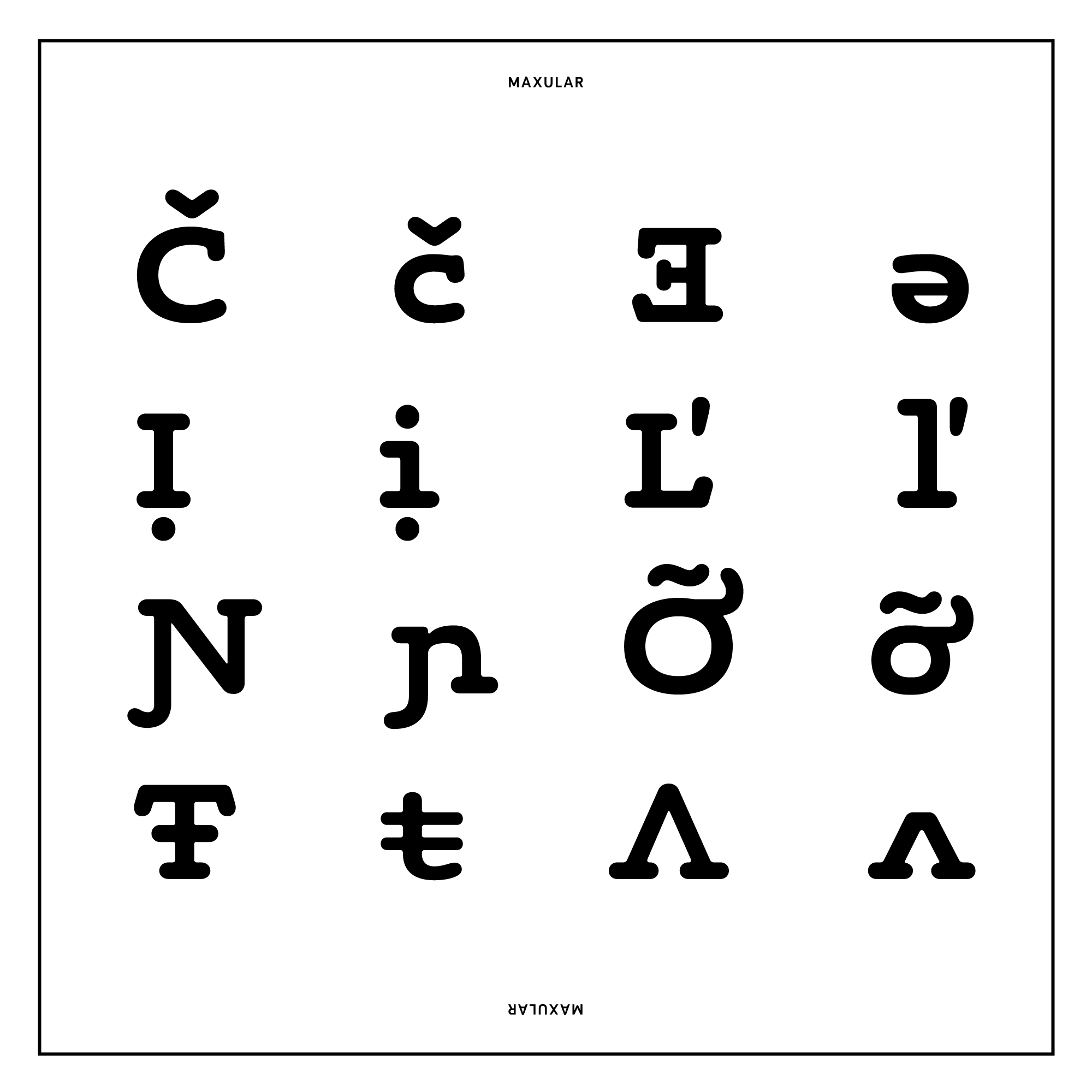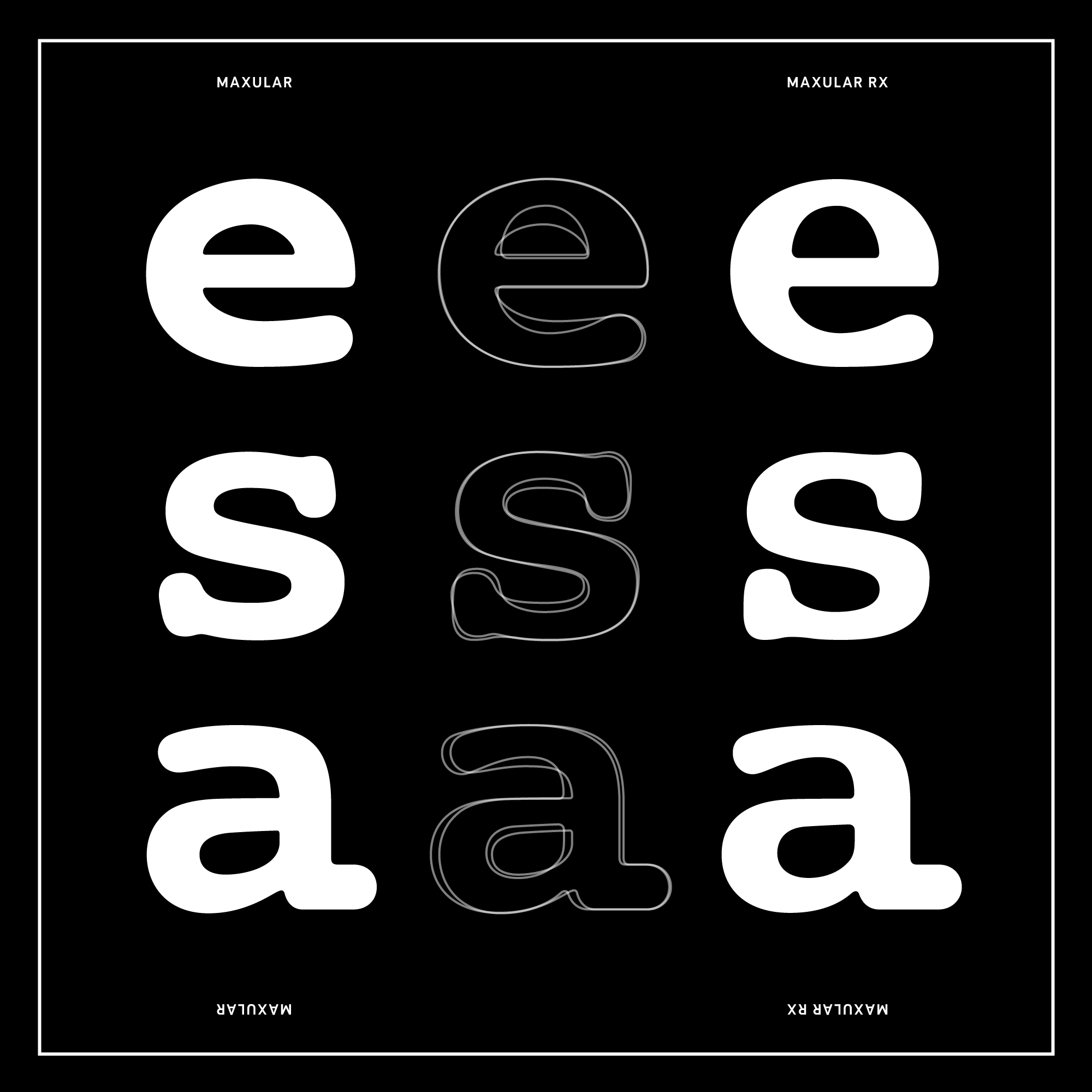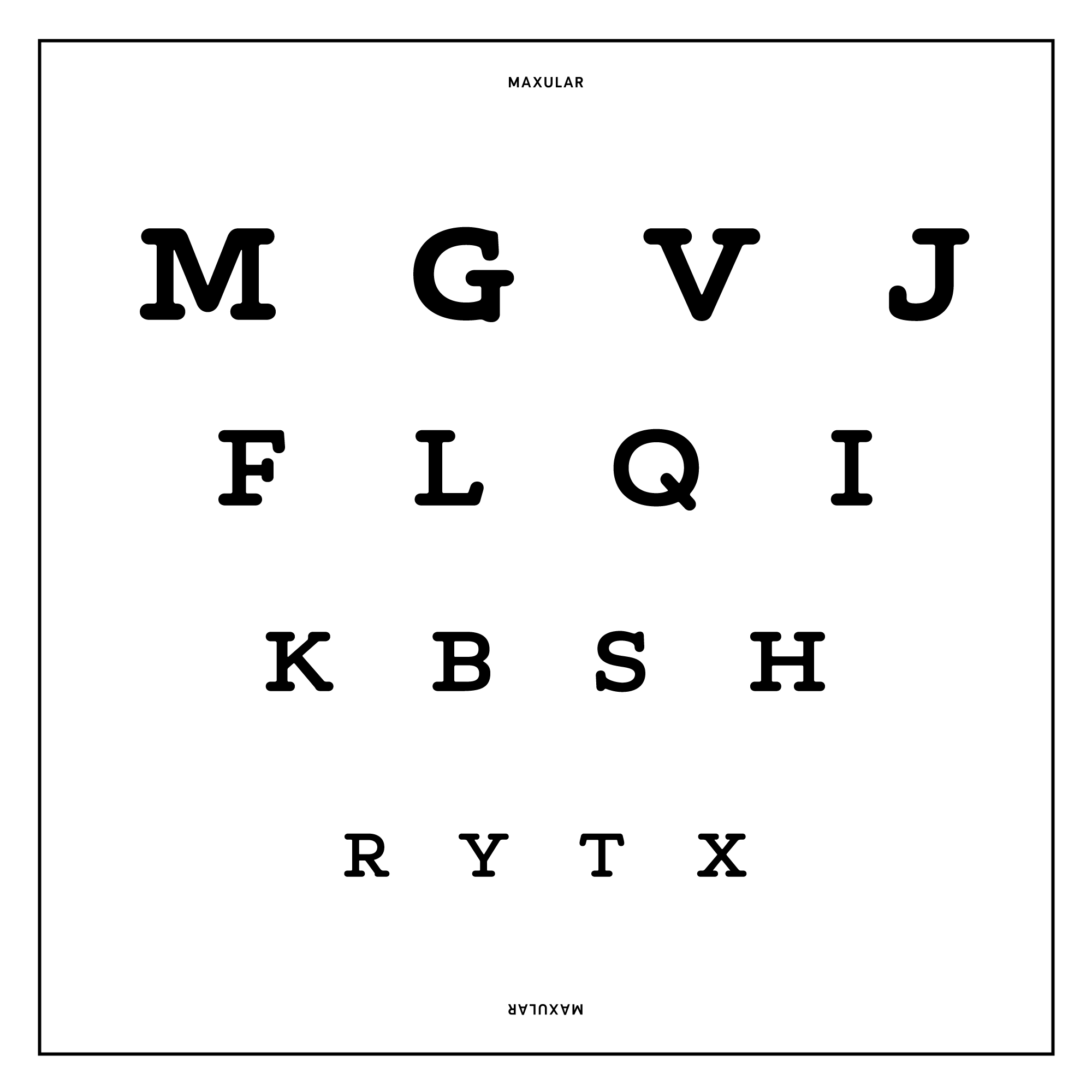
Maxular®
A rounded Slab Serif design
with a special origin.
Designed by Steven Skaggs
Six years in the making, Maxular and Maxular Rx are two new, rounded slab serif typefaces by award winning designer, author, and educator Steven Skaggs. Maxular Rx is the first typeface expressly designed — and proven in scientific tests 1 — to address the visual distortions caused by Macular Degeneration (MD), which afflicts over six million people globally. From the beginning, the design of Maxular Rx was informed by the advice of a consultant who has moderate MD. Its development was also shaped by months of testing through two independent clinical trials with dozens of MD subjects and normal sighted subjects participating in the scientific tests.
Special features of the Rx versions
Unlike most general low-vision fonts, which are sans-serif, Maxular Rx is a serifed font. Studies have shown that under the particular distortions of macular degeneration, serifs aid in separating one letter from another while reinforcing the reading line. The terminals of all strokes and serifs are rounded to avoid angular distortion effects. Likewise, all of the junctions in the typeface have been rounded to inhibit distortion flares. One outcome of the tests was the decision to retain familiar letter forms, as more conventional alphabetical forms tested consistently superior to unconventional shapes. As a result, Maxular Rx uses conventional forms to keep the reading speed and comfort level high, even at very small sizes.
The letter forms are extended in order to project clearly to peripheral vision. A very large x-height helps the font body appear larger to the eye. Inter-letter and word spacing is more open to assure the glyphs are distinctly discriminated. Greater line spacing is built-in, to prevent overcrowding in the vertical dimension even in apps and on devices that do not allow for increased line space.
Of course, we didn’t stop at just the two Maxular Rx versions. Understanding that some of the special features Rx employs could be distracting for normal-sighted readers, Skaggs re-drew many glyphs and drew new italics for the six Maxular (non-Rx) versions, intended for everyday use.
Every font in the Maxular family has a character set of over 700 glyphs, with support for 305 languages including Czech, Polish, Turkish, and Vietnamese. It also features a useful set of eight arrows in each font and a handful of fun alternate glyphs in the italics.
Additional features include: Kerning, Standard Ligatures, Discretionary Ligatures, Ordinals, Case-Sensitive Forms, Fractions, Numerators, Denominators, Superscript, Subscript, Tabular Figures, and Localized Forms.